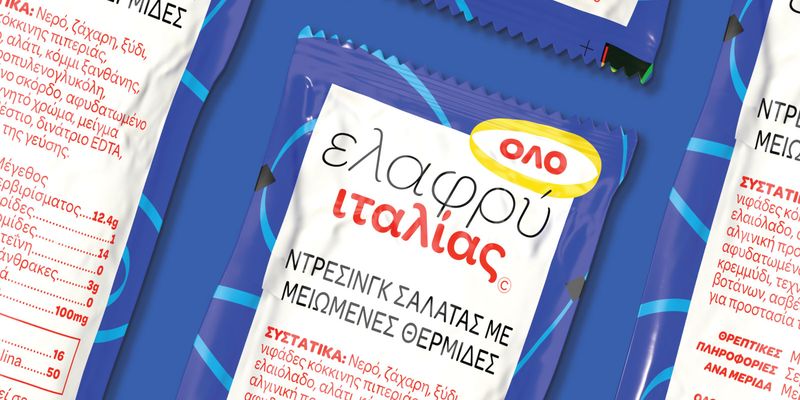
Omnes Greek Font Free Download is a clean and modern sans-serif typeface designed with geometric precision. Featuring both Latin and Greek characters, this font is perfect for multilingual projects, websites, branding, and editorial design that require a sophisticated and highly legible font.
Omnes Greek offers versatility for both display and body text, ensuring readability in a variety of contexts. It works seamlessly with design software like Adobe Illustrator, Photoshop, Figma, and Canva, providing flexibility for both print and digital applications.